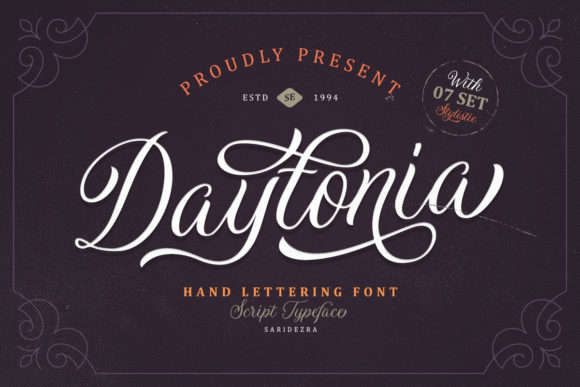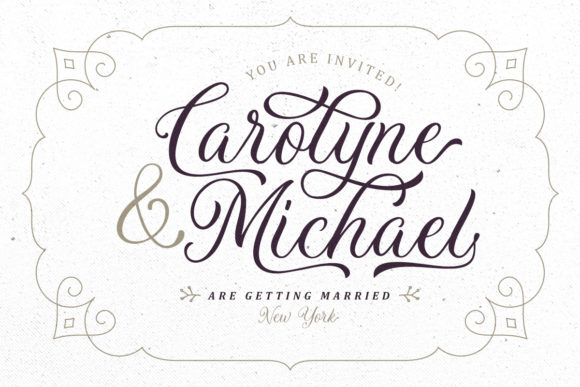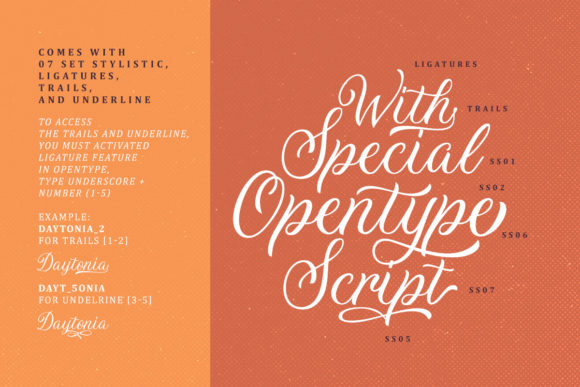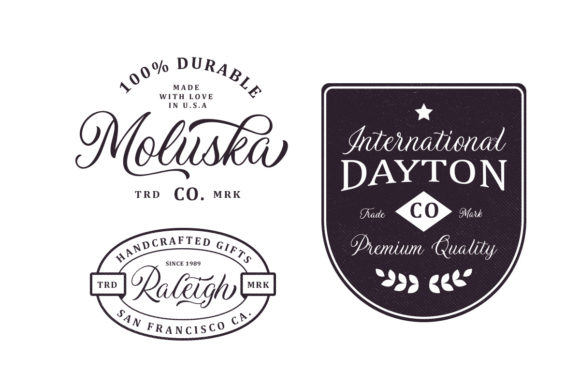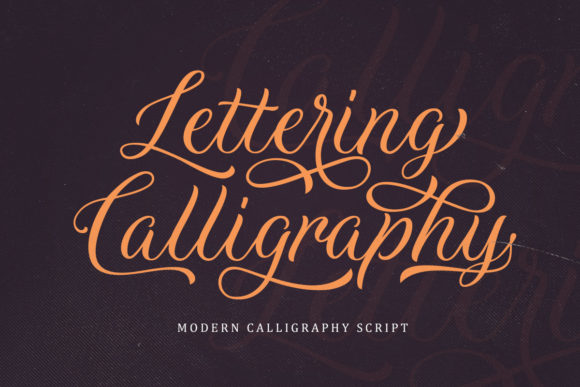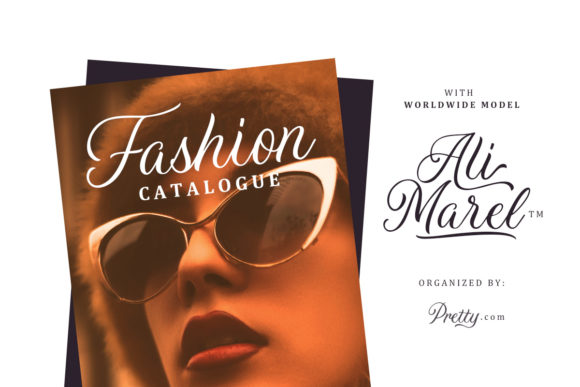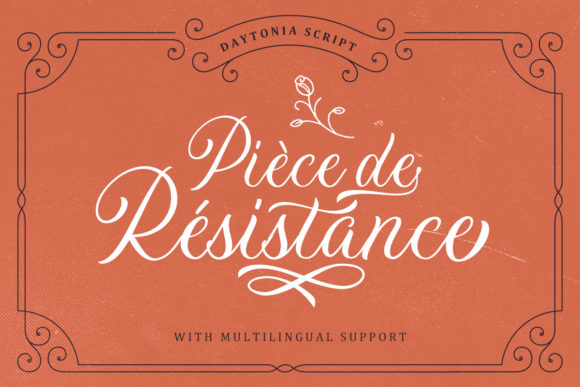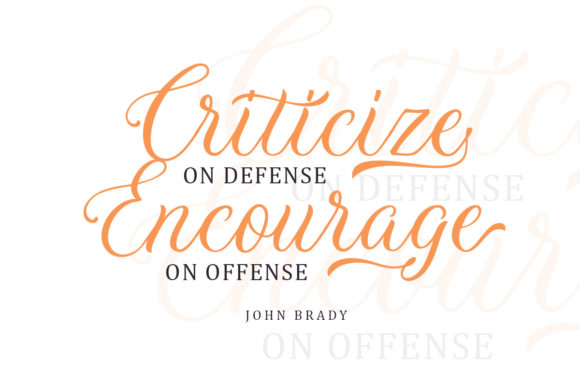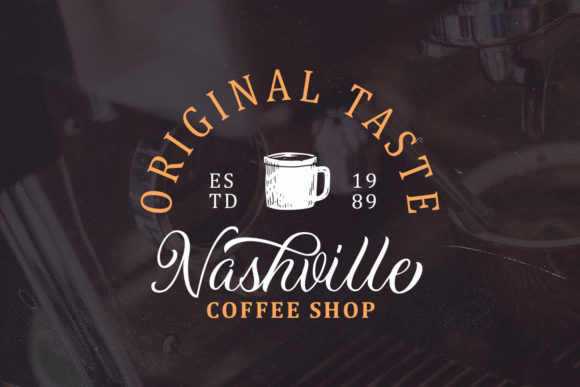
Daytonia Font
About Daytonia Font
The Daytonia is a handmade script font. It’s suitable for branding, logos, hand lettering, apparel designs, and much more!